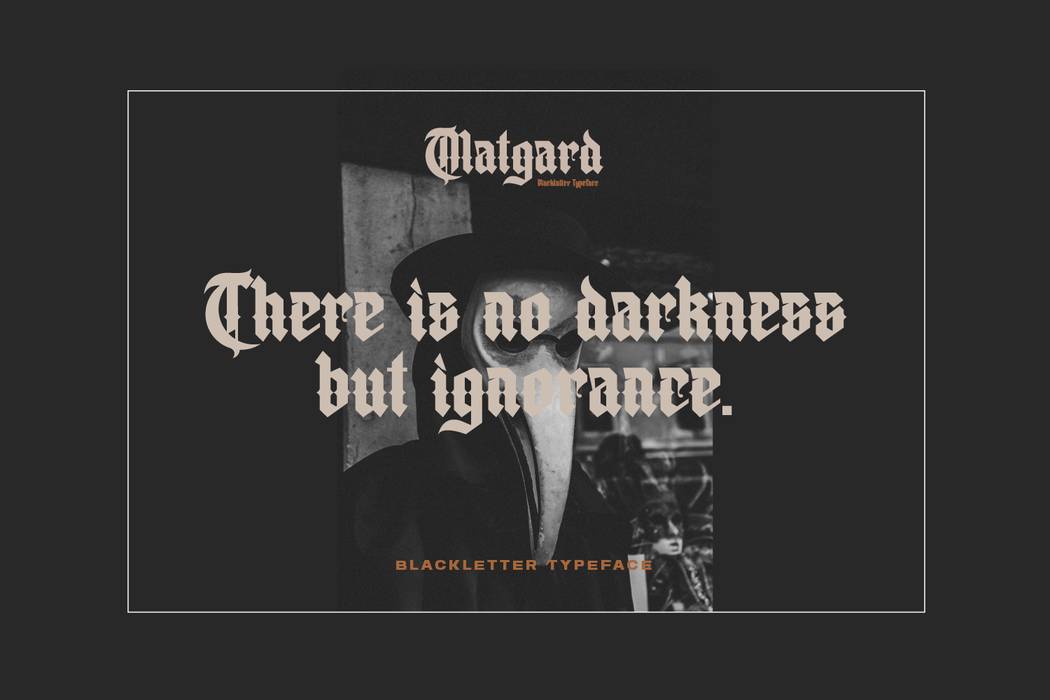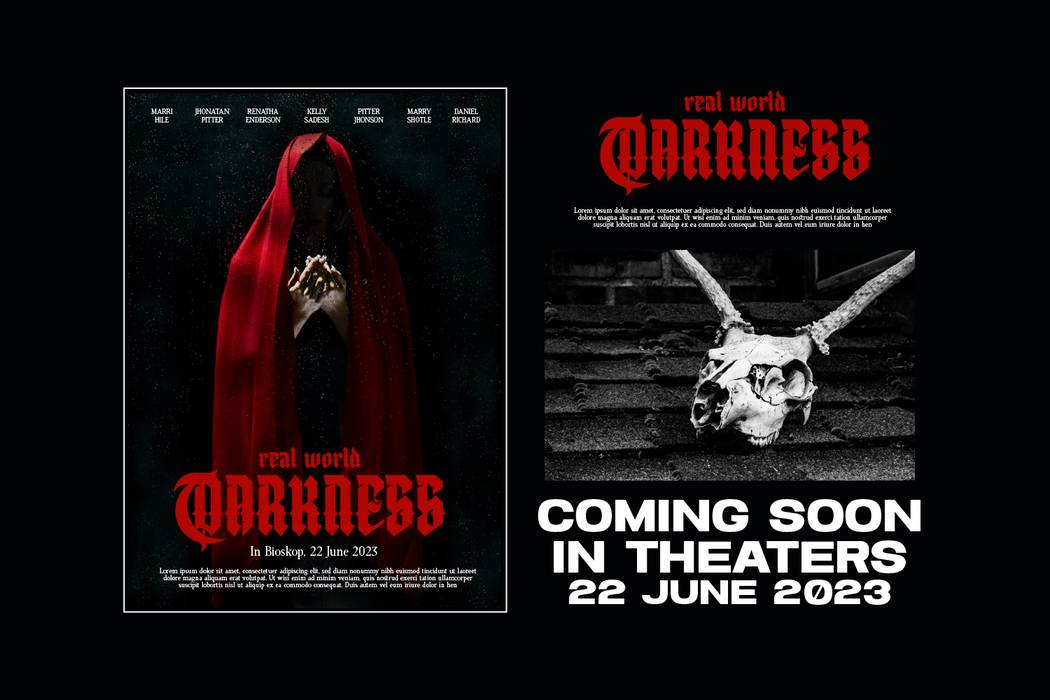
Matgard is a bold, blackletter-style serif font with sharp, angular strokes and a strong medieval character. Its tall, narrow letterforms and high contrast between thick and thin lines give it a striking, gothic appearance that works well for vintage, fantasy, or historic-themed branding and headlines. This font is ideal for creating eye-catching logos, posters, or editorial designs that require a dramatic and authoritative tone.
Matgard Font
About Matgard Font
| Font family | Matgard Font |
| Designer | Rony Rizki Jaya |